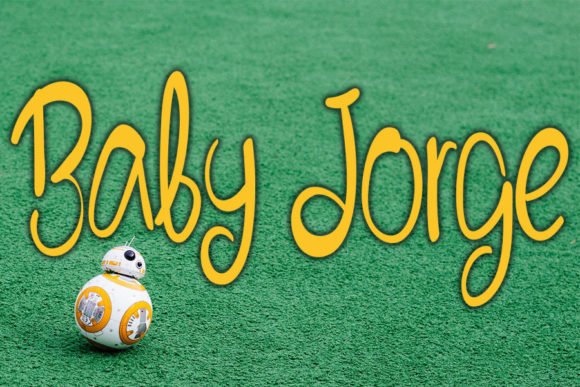
Bring Your Designs to Life with Baby Jorge Font
Have you ever stared at a blank page, waiting for the perfect font to come to life? That’s exactly what happened to me when I discovered Baby Jorge Font. I was working on a project that required a delicate touch, and I needed a font that would complement my design without overpowering it. That’s when I stumbled upon Baby Jorge Font, a beautiful handwritten font that exudes elegance and sophistication.
Designed to add a touch of whimsy to any design, Baby Jorge Font is perfect for those looking to create something truly unique. With its well-balanced characters and flowing lines, it’s a versatile font that can be used in a wide range of projects, from invitations to advertisements. Whether you’re a seasoned designer or just starting out, Baby Jorge Font is a valuable addition to your toolkit.
Baby Jorge Font Key Features
- Font Family: Baby Jorge Font
- Font Style: Casual Script
- Unique Characteristics: Hand-drawn, elegant, and cursive script with a childlike charm, ideal for titles, headings, and creative projects.
Designer Review: Baby Jorge Font
Overall, I think Baby Jorge Font has its charm. The quirky, hand-drawn feel of this font makes it perfect for playful, whimsical designs and adds a touch of nostalgia to your projects. ✨
- Unique, eclectic feel
- Perfect for adding a sense of humor or whimsy to your designs
- Works well for titles, headings, and short paragraphs
However, I do have some reservations:
- ⚠️ Limited font size range: Baby Jorge Font starts to break apart and lose its charm at font sizes above 24pt or below 12pt
- ⚠️ Not ideal for body text: The font’s quirky feel can be distracting for large blocks of text
Overall, I think Baby Jorge Font is a great addition to your font library if you’re looking for something to add some personality to your designs. Just be mindful of its limitations, and use it sparingly for maximum impact.
Tips for Getting the Most Out of Baby Jorge Font
Use the Baby Jorge Font to create playful and whimsical designs, perfect for children’s products, nursery decor, or family-themed projects.
Experiment with different font sizes and colors to achieve the desired level of whimsy and charm.
Use the Baby Jorge Font for:
Children’s book titles and text
Nursery decor labels and signs
Family-themed invitations and party decorations
Alternatives to Baby Jorge Font
Playfair Display is a luxurious and elegant script font that is perfect for high-end branding, wedding invitations, and special occasions. It features beautiful connections and flowing lines that evoke a sense of sophistication and refinement. Compared to Baby Jorge Font, Playfair Display is more ornate and less casual, making it a better choice for formal events and upscale designs.
Great Vibes is a modern and stylish script font that is great for creating a fun and energetic vibe. It’s perfect for music festivals, summer campaigns, and any design that needs a carefree and laid-back feel. Unlike Baby Jorge Font, Great Vibes is more playful and less serious, making it a better choice for designs that need a lighthearted tone.
Carolyna Pro is a modern and elegant script font that is perfect for creating a sophisticated and stylish vibe. It features beautiful connections and flowing lines that evoke a sense of luxury and refinement. Compared to Baby Jorge Font, Carolyna Pro is more refined and less casual, making it a better choice for high-end branding and upscale designs.
Montserrat is a modern sans-serif font that is great for creating a clean and minimalist vibe. It’s perfect for tech companies, startups, and any design that needs a bold and modern feel. Unlike Baby Jorge Font, Montserrat is more geometric and less ornate, making it a better choice for designs that need a clean and simple aesthetic.
Unique Projects Using Baby Jorge Font
Create a charming menu board for a children’s restaurant or a bakery using the Baby Jorge Font. This playful font will add a touch of whimsy to your design.